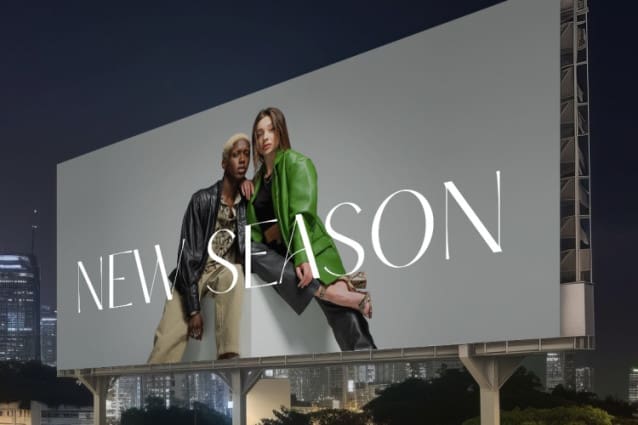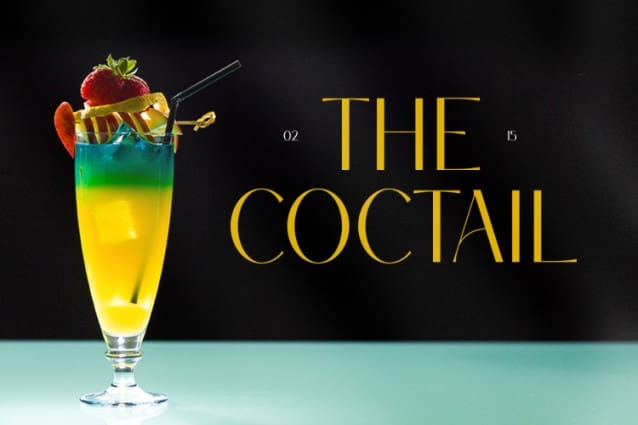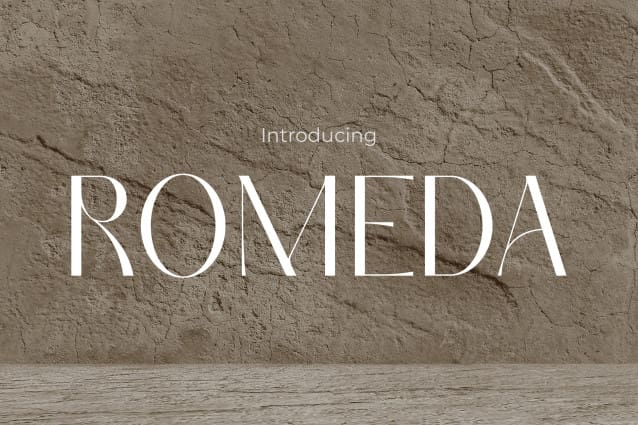
Romeda Font
Romeda Font is a stunning display typeface meticulously crafted to embody elegance and sophistication, perfectly tailored for cosmetic branding and glamorous design projects. With its graceful letterforms and intricate details, ROMEDA Font exudes an aura of luxury and refinement that elevates any visual composition it graces. Whether adorning product packaging, promotional materials, or editorial layouts, this font captivates attention and exudes a sense of glamour that resonates with discerning audiences.
Elevate your cosmetic branding to new heights with ROMEDA Font, where elegance meets impact in every stroke. Its stylish yet refined aesthetic makes it the ideal choice for conveying a sense of beauty and allure, ensuring that your message is communicated with poise and distinction. Transform your designs into works of art that radiate sophistication and charm with ROMEDA Font, the epitome of elegance in display typography for the cosmetics industry.